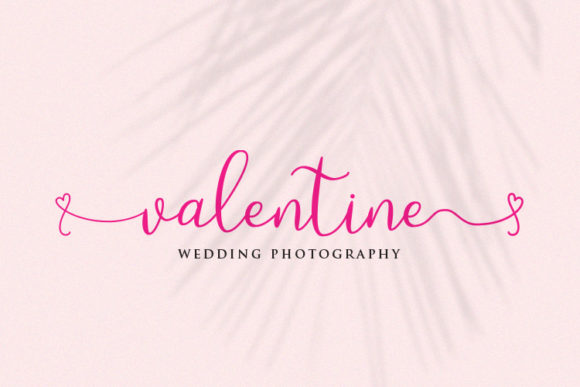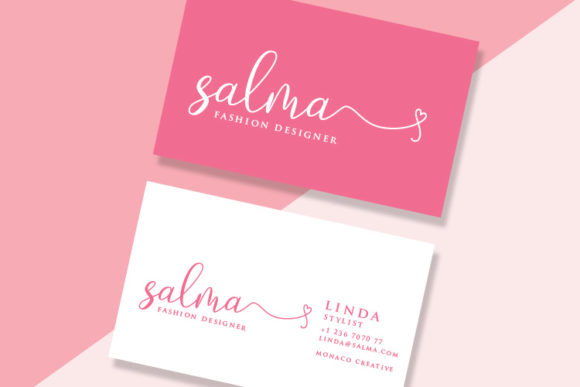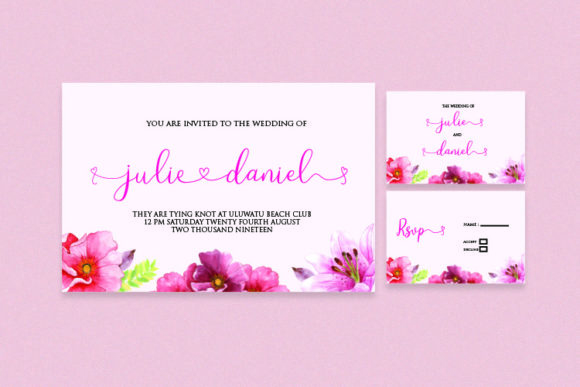
Introduction to Loveyou Font
Have you ever found yourself pouring your heart into a creative project, only to realize that it’s missing that special something to make it truly unforgettable? For designers and crafty enthusiasts alike, the perfect font can be the difference between a good project and a great one. That’s where the Loveyou Font comes in – a stunning, modern calligraphy font that’s sure to add a touch of romance to any project.
With its beautiful, flowing script and special heart characters, the Loveyou Font is the perfect design resource for anyone looking to add a little extra love to their work. Whether you’re creating digital art, designing wedding invitations, or crafting handmade cards, this high-quality font is sure to elevate your projects to the next level. And the best part? It’s free to download, making it a valuable addition to any designer’s toolkit.
Key Features of Loveyou Font
- High-quality design resource for creative projects: Loveyou Font is a unique and elegant font perfect for various design applications.
- Perfect for digital and print projects: Loveyou Font is ideal for use in digital designs, such as social media graphics, web pages, and presentations, as well as print projects, like business cards, brochures, and posters.
Honest Review: Loveyou Font
I recently stumbled upon the Loveyou Font, and I must say, it’s been a pleasant surprise. This free download has been a game-changer for my creative projects, offering a high-quality design resource that’s hard to find.
- ✨ Unique and creative design: The Loveyou Font is a beautiful blend of modern and playful elements, making it perfect for projects that require a touch of whimsy.
- ✨ Versatility: The font can be used for a wide range of applications, from logos to social media graphics.
However, I did encounter a few limitations while working with the Loveyou Font. ⚠️ For instance, the font may not be suitable for all types of text, as it can be quite ornate. Additionally, the free version may not include all the glyphs you need for your project.
Overall, I’m impressed with the Loveyou Font. It’s a high-quality design resource that’s perfect for creative projects. While it may have some limitations, the benefits far outweigh the drawbacks. If you’re looking for a unique and creative font for your next project, I highly recommend giving the Loveyou Font a try.
The Loveyou Font is ideal for use in wedding invitations, social media graphics, and other creative projects where a high-quality, unique font is desired.